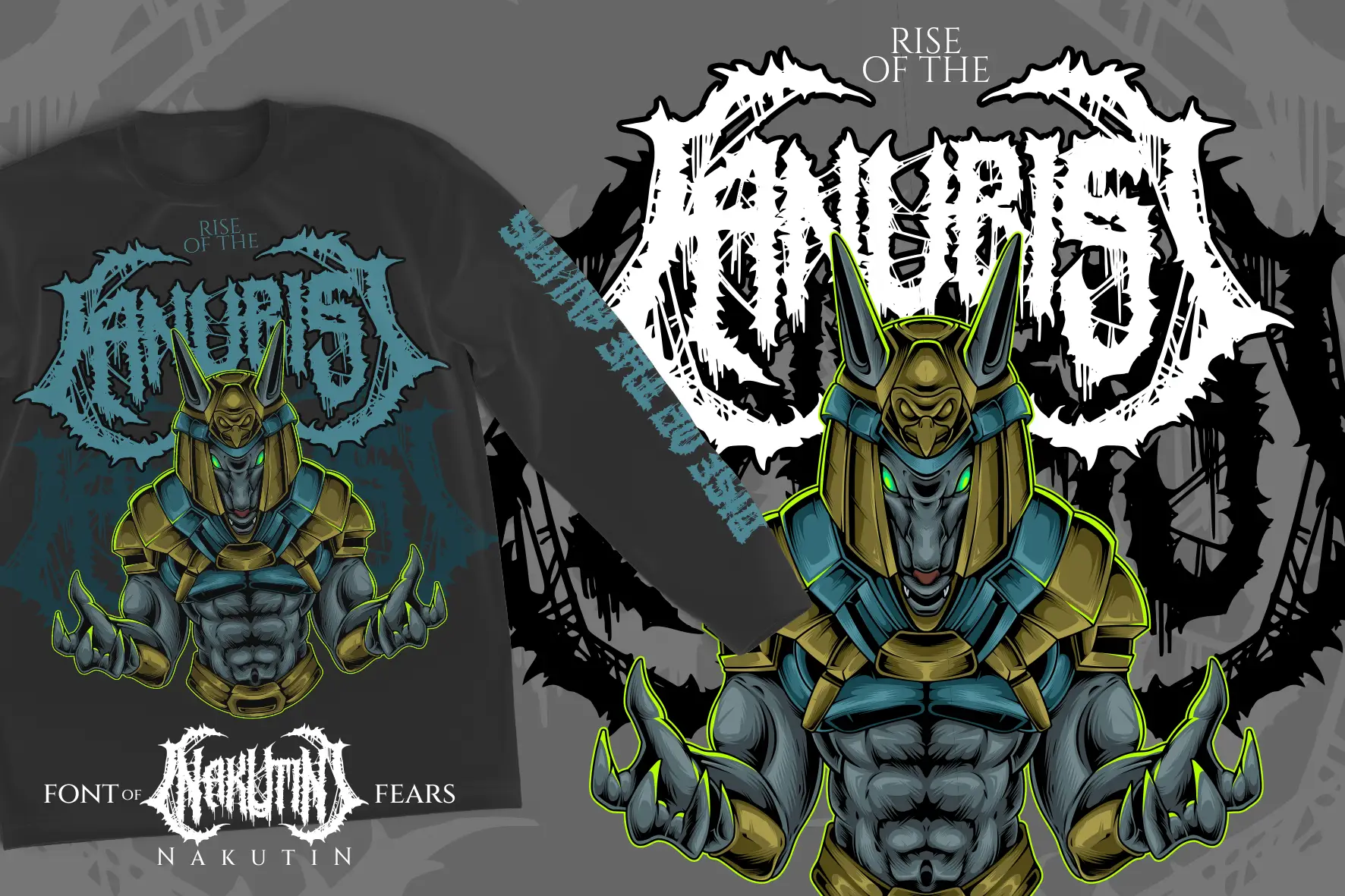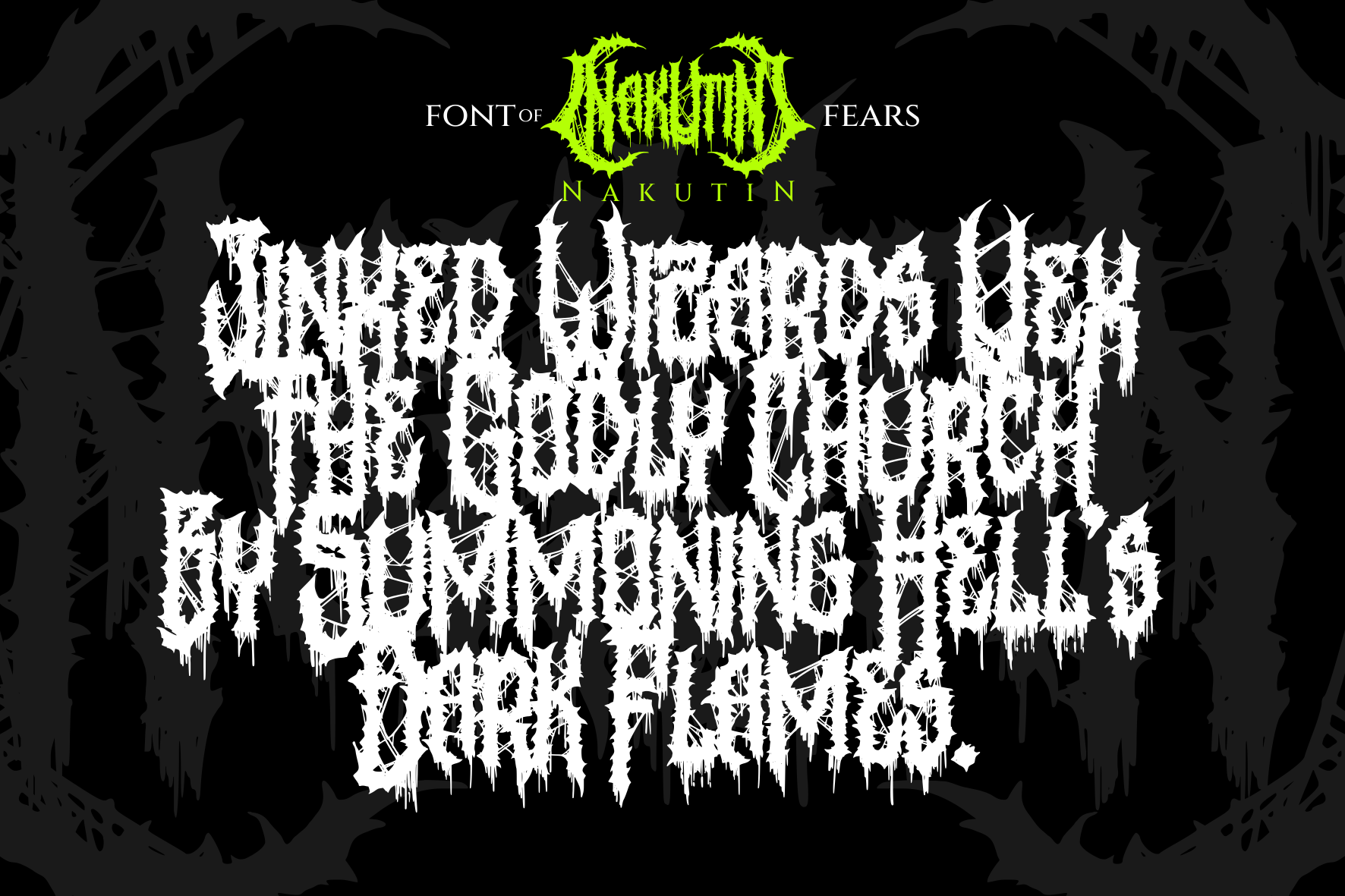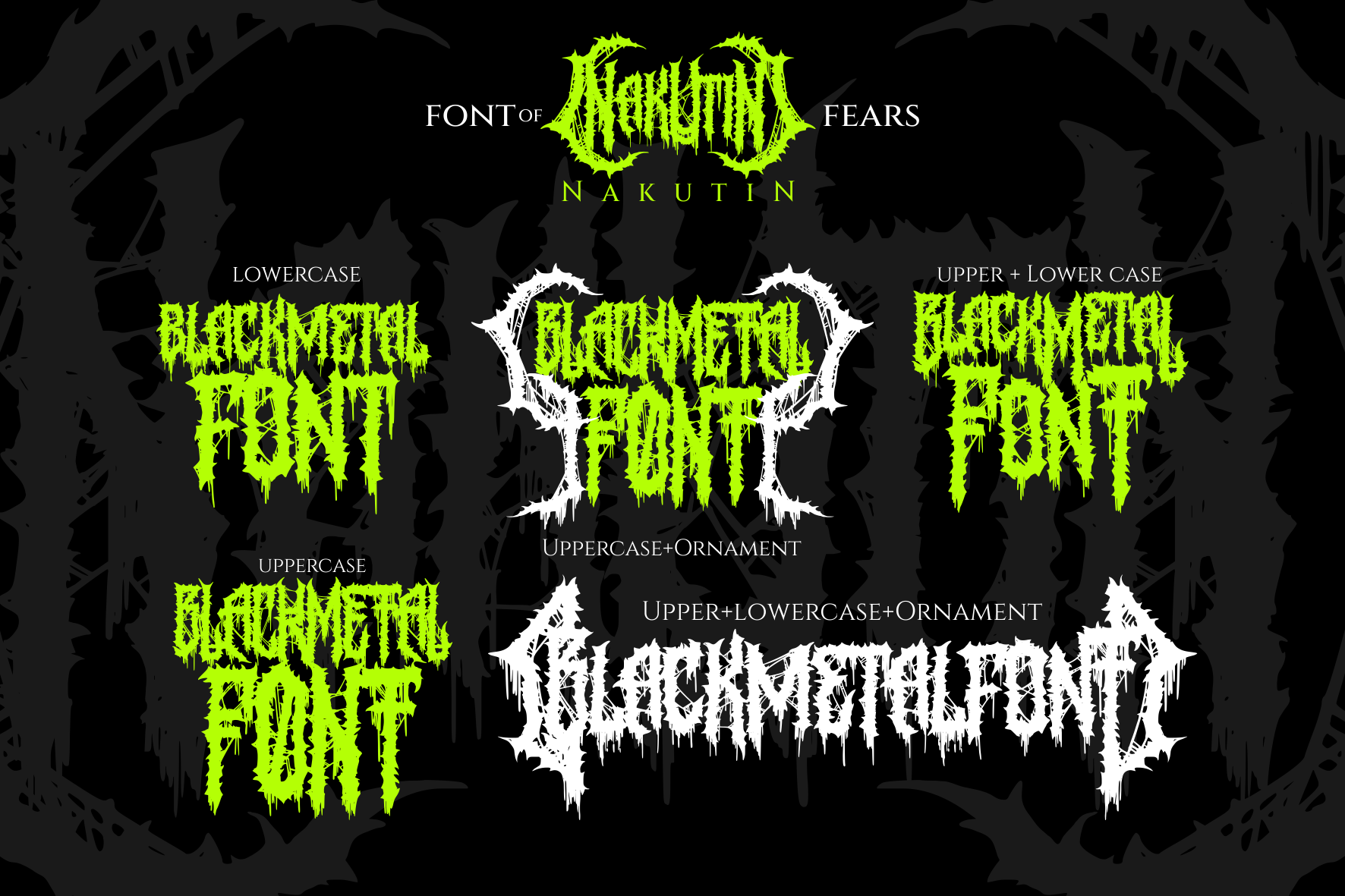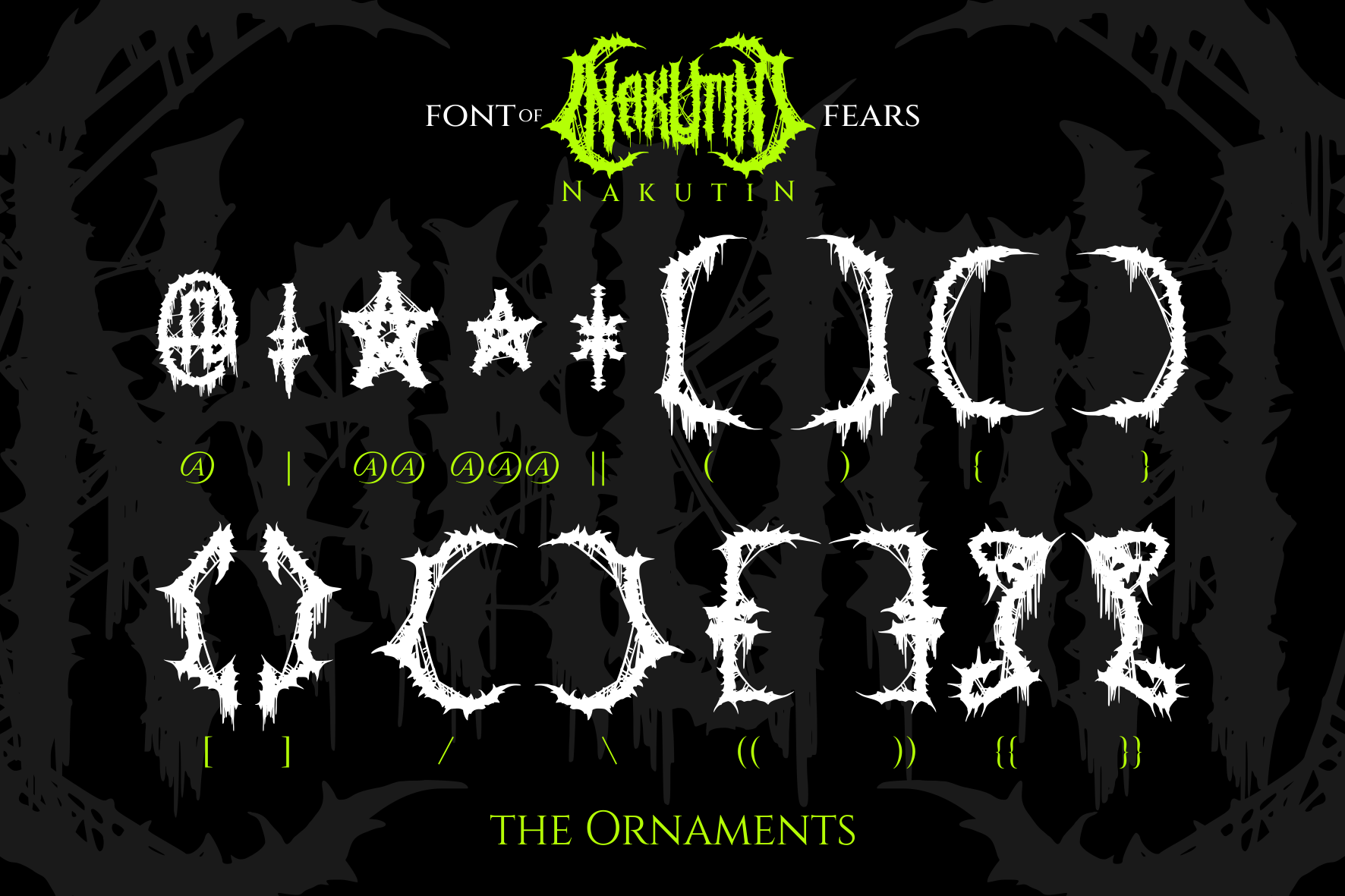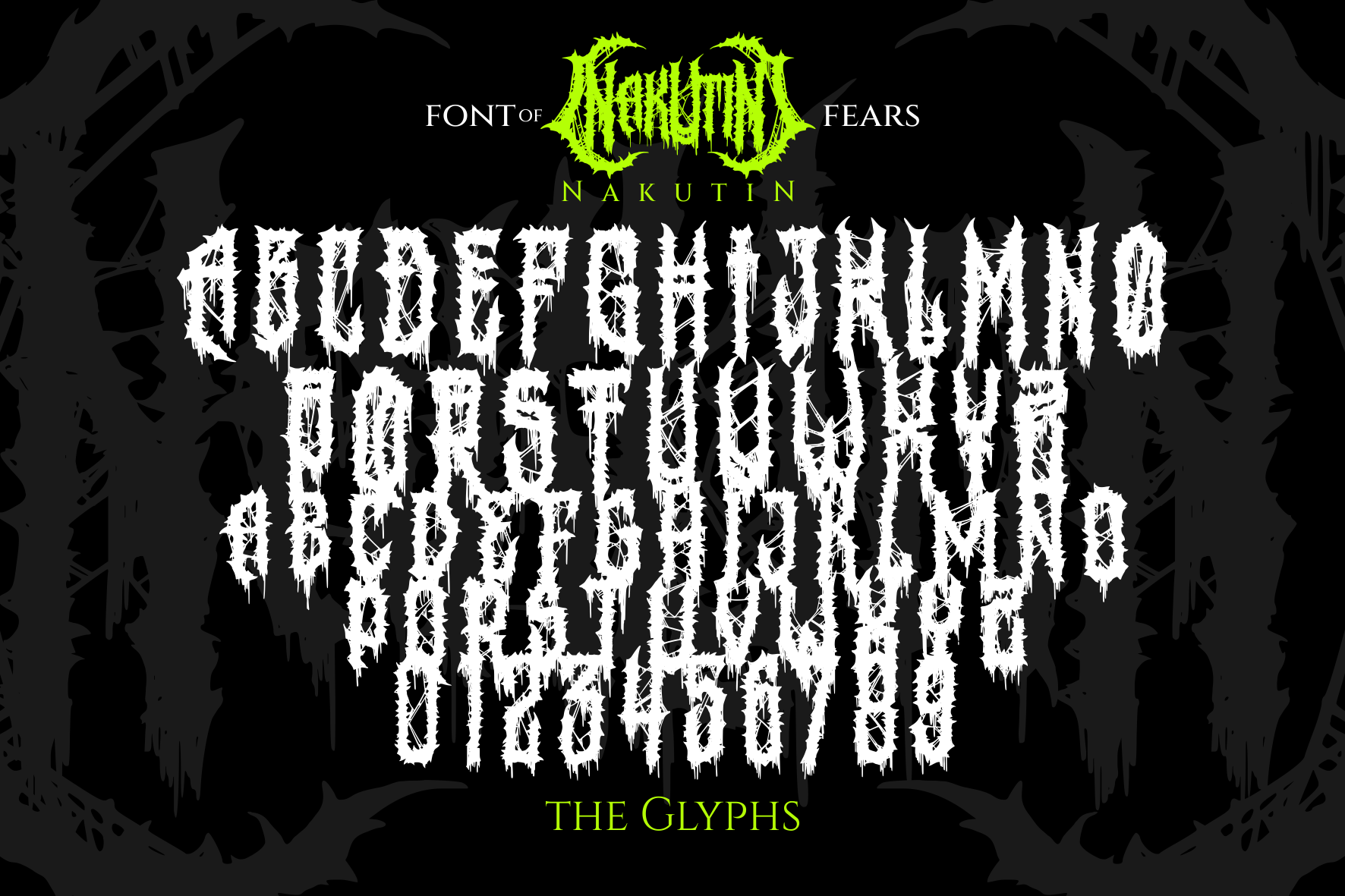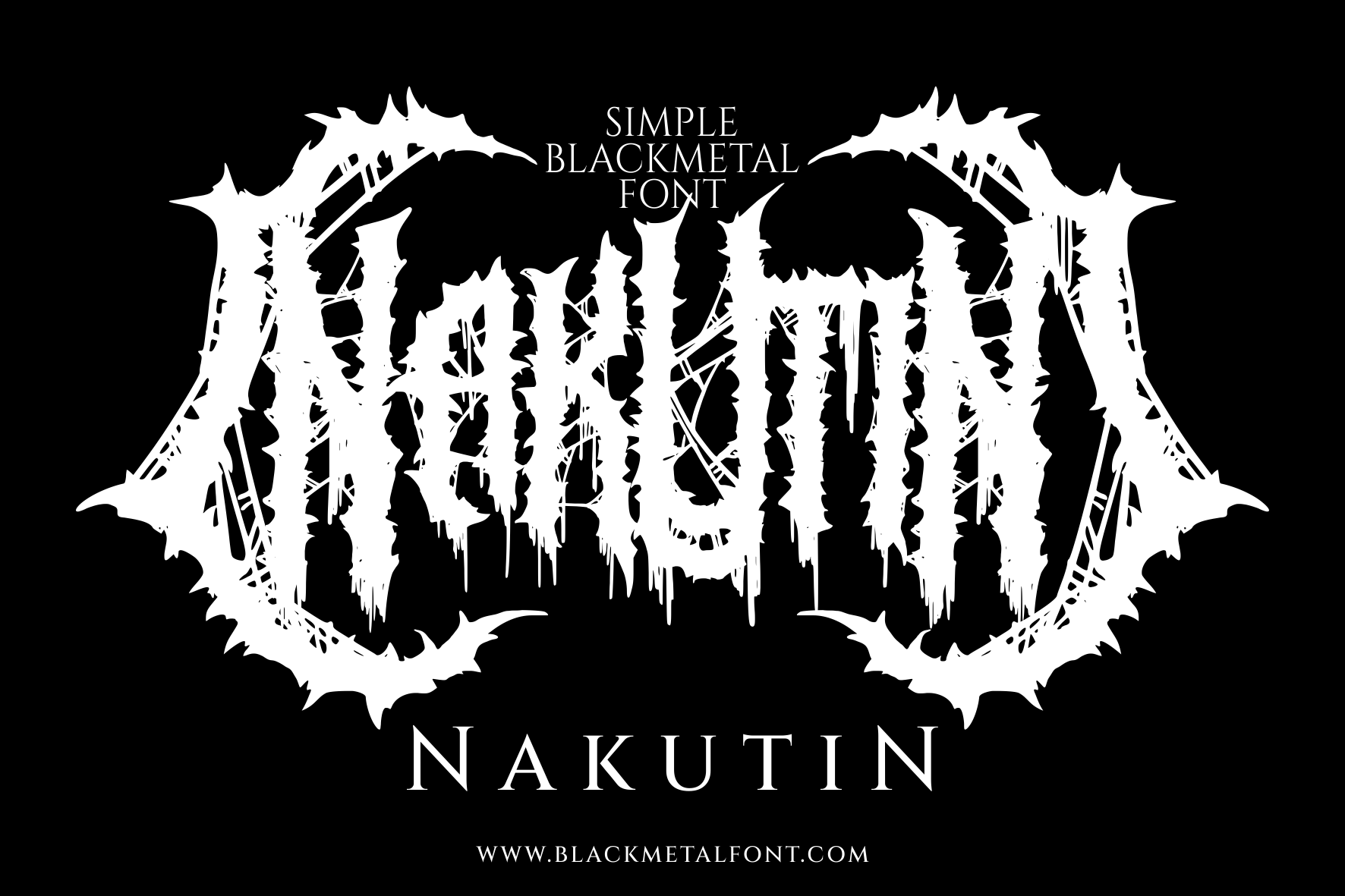
NAKUTIN is a brutal black metal font carved in chaos and forged in fear. With razor-sharp strokes, jagged forms, and chaotic symmetry, this typeface screams from the depths of darkness. Inspired by underground metal logos and raw aggression, NAKUTIN isn’t made to be pretty—it’s made to be felt.
Perfect for extreme music artwork, horror visuals, band logos, and anything that demands raw, terrifying energy. Illegible by design. Brutal by nature.
Use it when your message should not whisper… but roar.